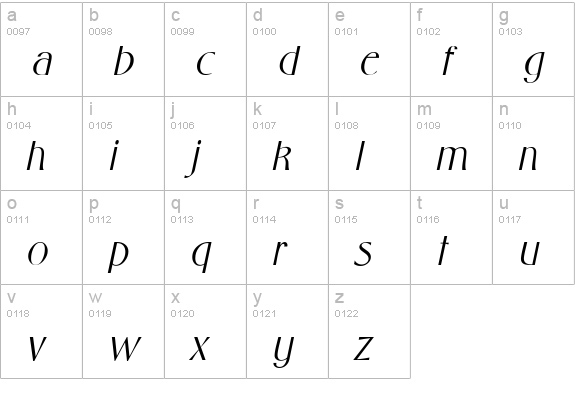
CapatolaSSK Italic Font Details
CapatolaSSK Italic is a distinctive, italic variant in the CapatolaSSK typeface family \xE2\x80\x94 well suited to design and typography projects.
CapatolaSSK Italic font is a versatile and elegant typeface that exudes sophistication and charm. With its slanted style and graceful curves, this font is perfect for adding a touch of class to your design projects. Whether you're creating invitations, greeting cards, or branding materials, CapatolaSSK Italic font will make your text stand out in a stylish way. The best part is, CapatolaSSK Italic font is available for free download at FontsMarket.com. You can easily access this exquisite typeface without any cost, making it a valuable addition to your font collection. Don't miss out on the opportunity to enhance your designs with the beauty and elegance of CapatolaSSK Italic font. Download it today and elevate your creative projects to new heights.